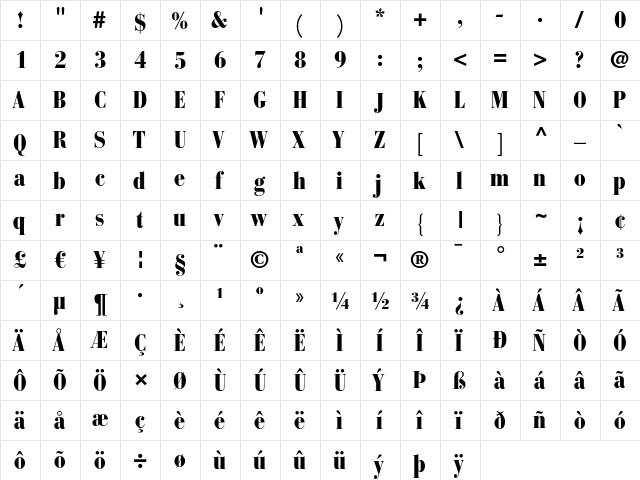
Bauer Bodoni LT Regular
Design Context for Bauer Bodoni LT Typeface
Bauer Bodoni LT takes a measured approach to typography — its balanced proportions and neutral character make it a reliable workhorse for both digital and print work. Its slender proportions lend an understated elegance to any composition.